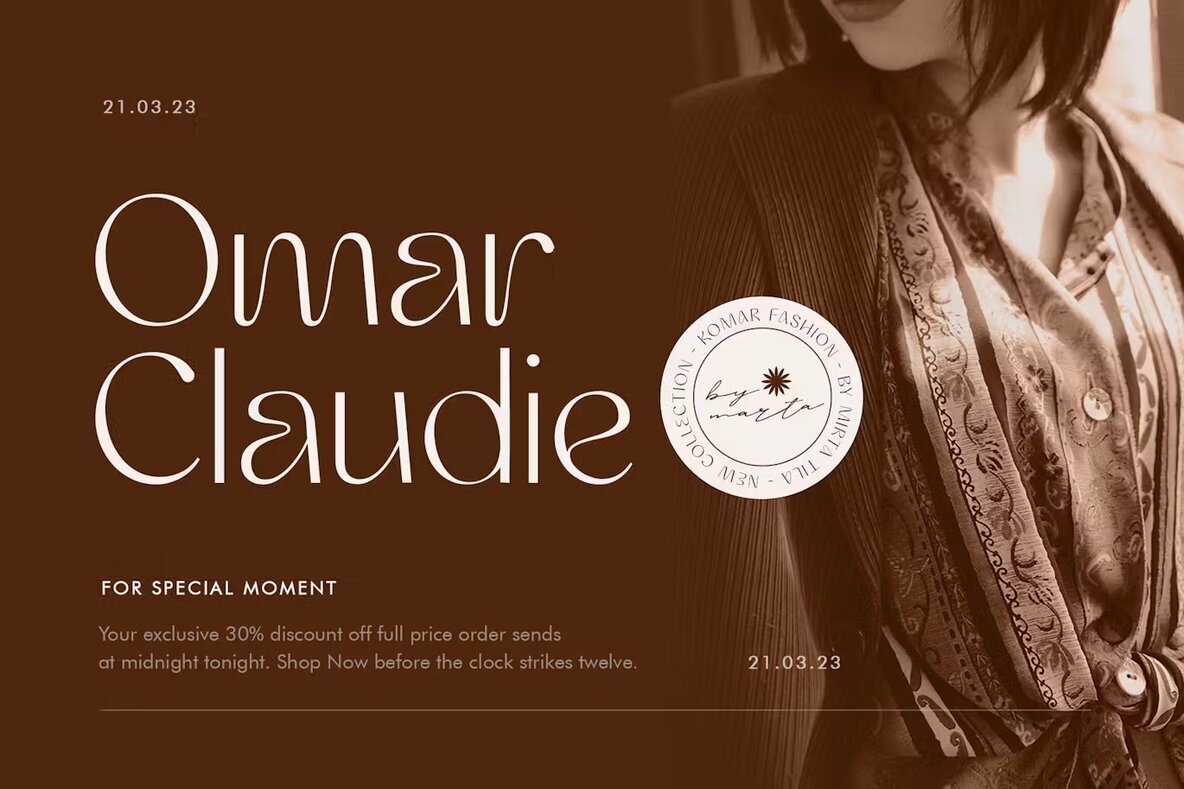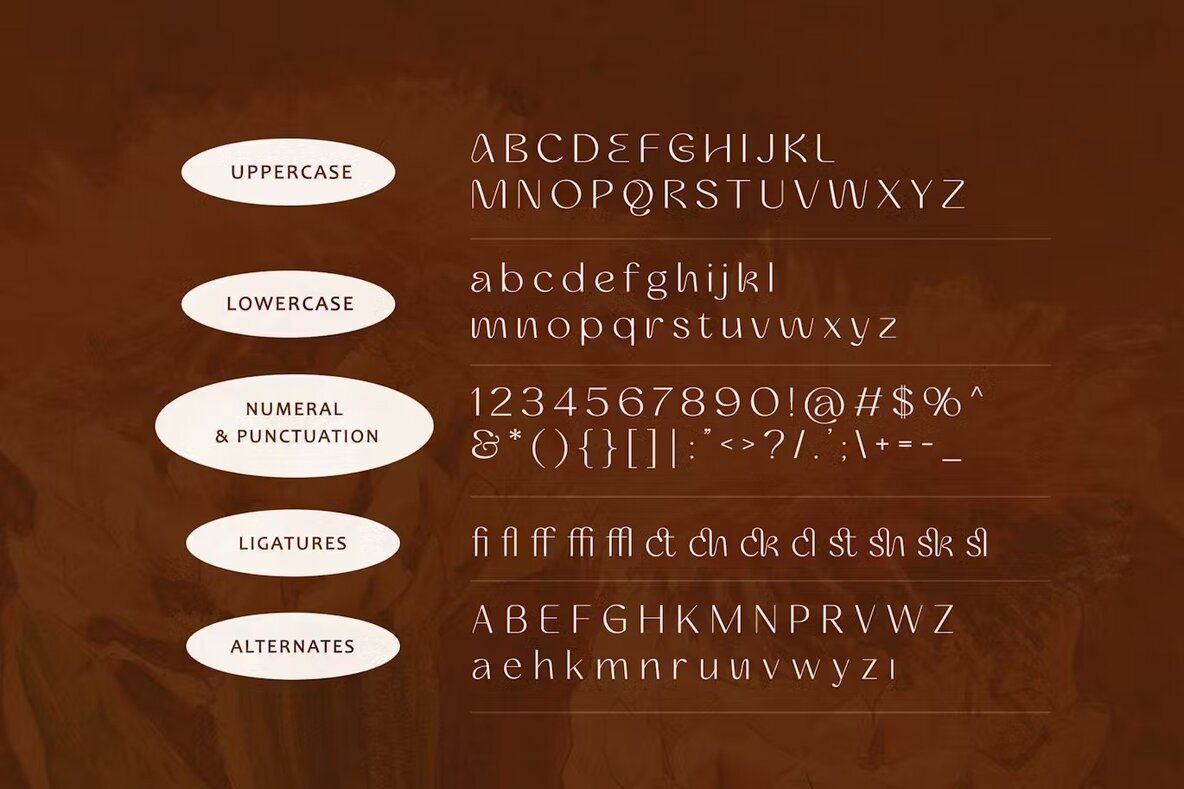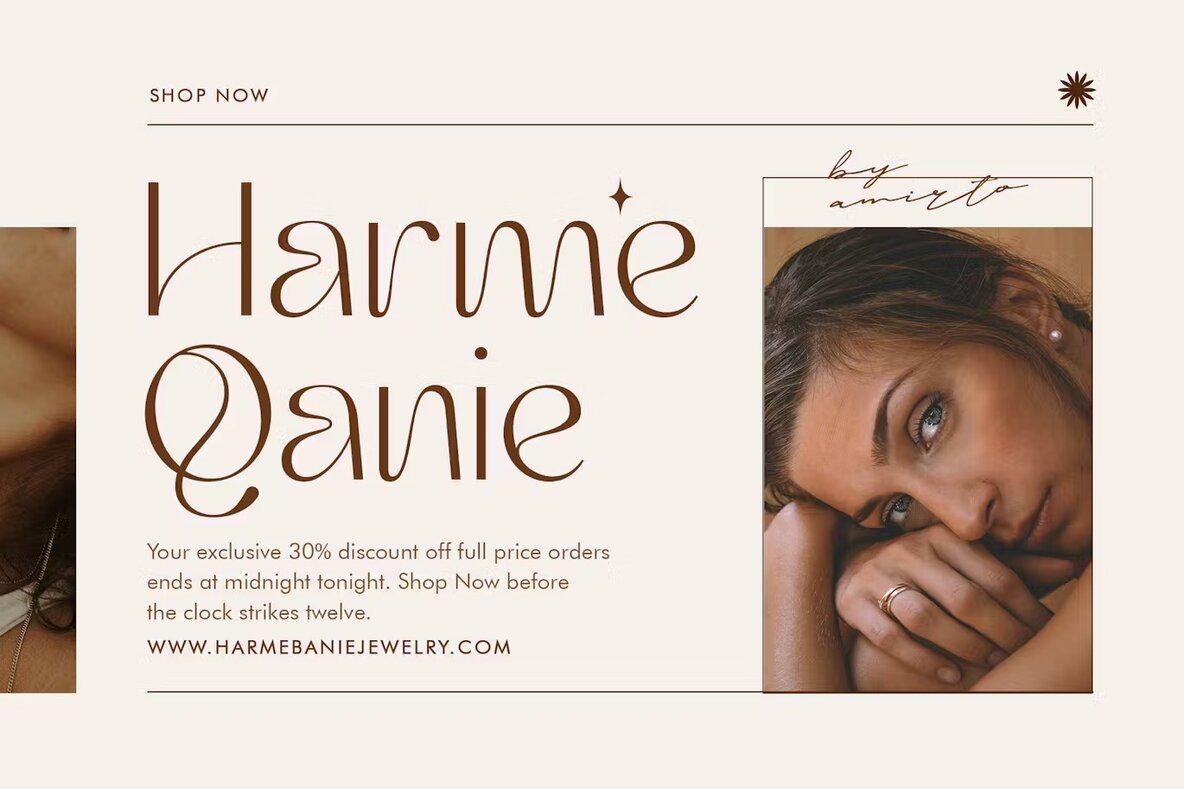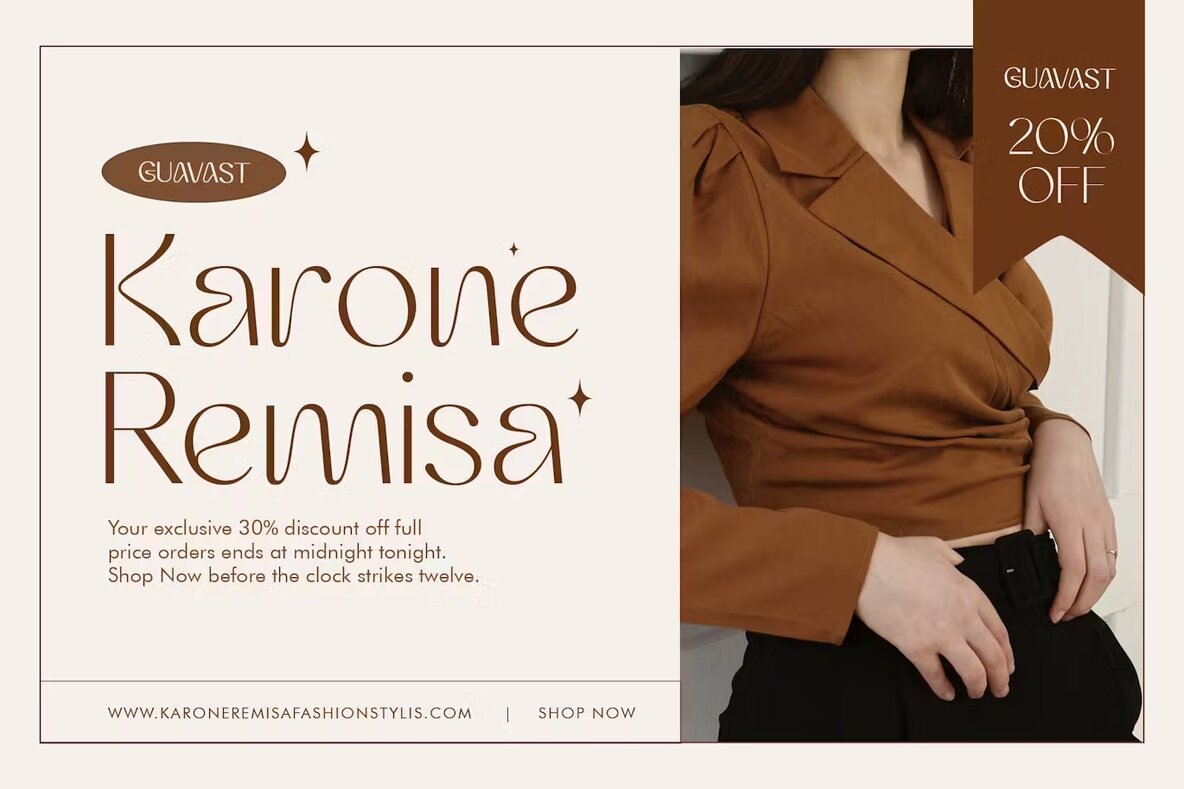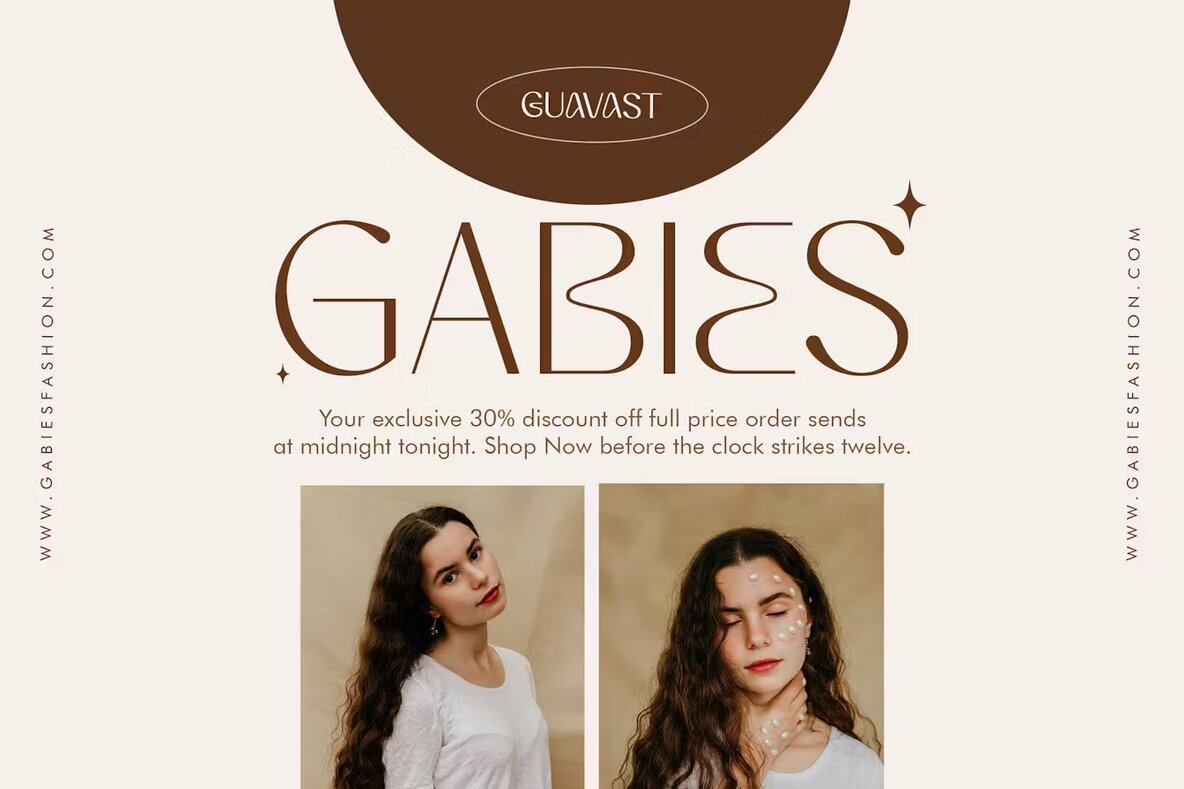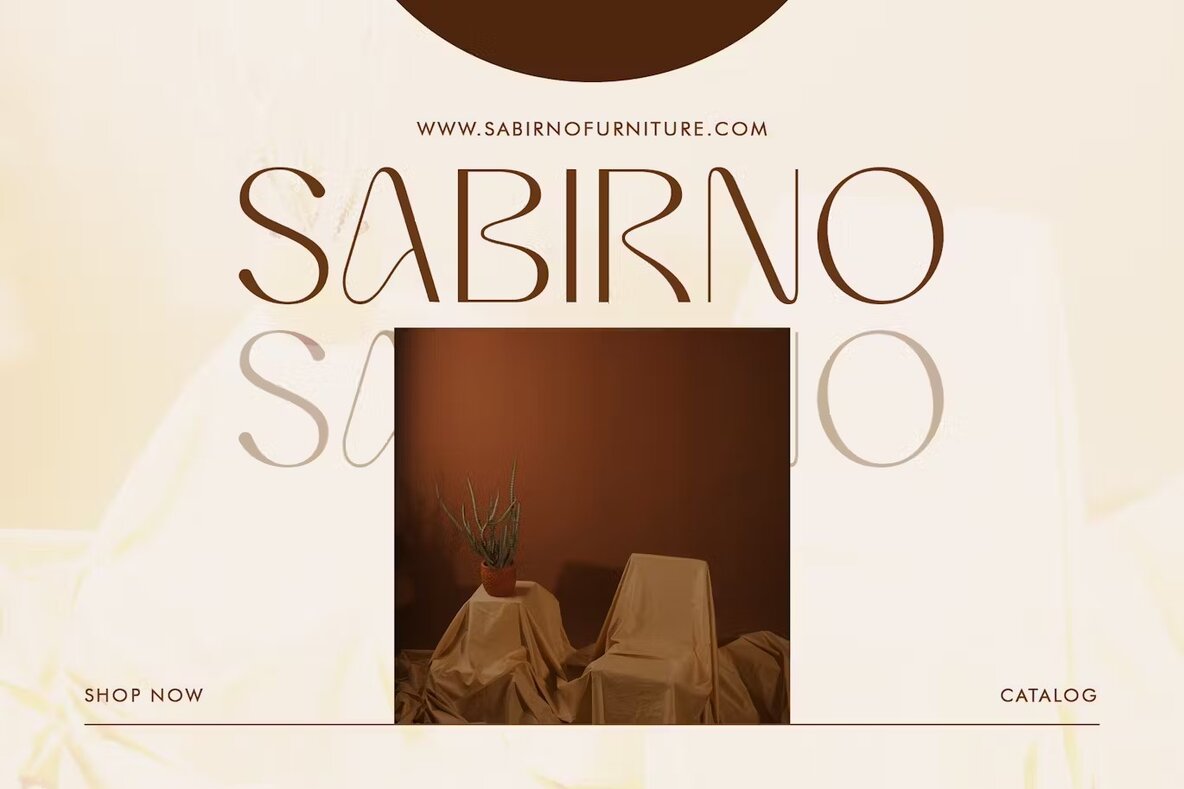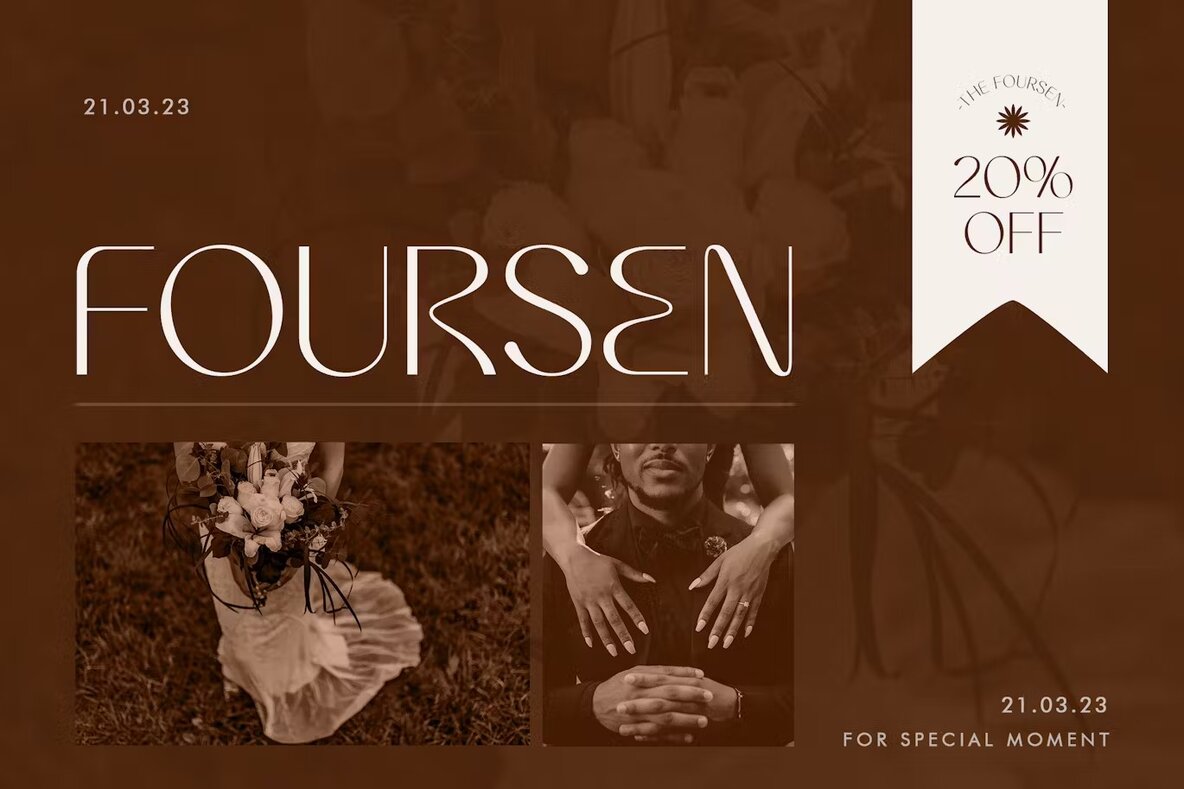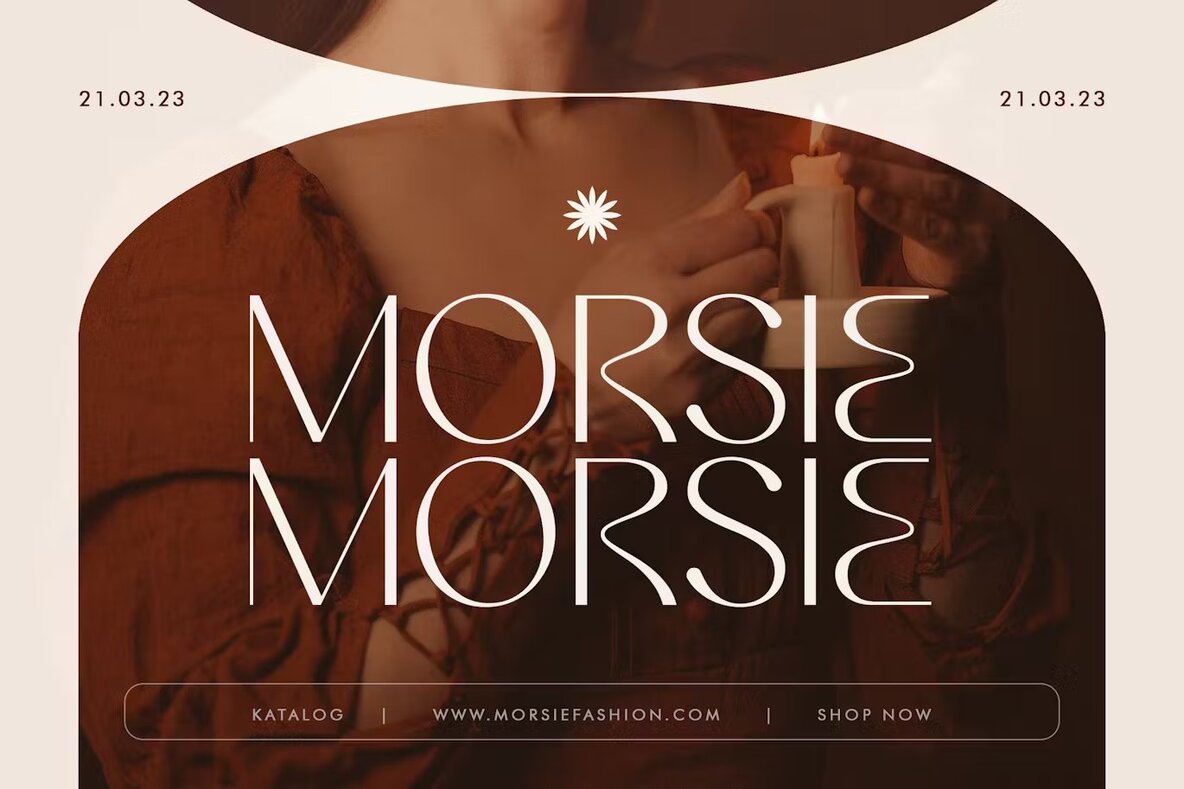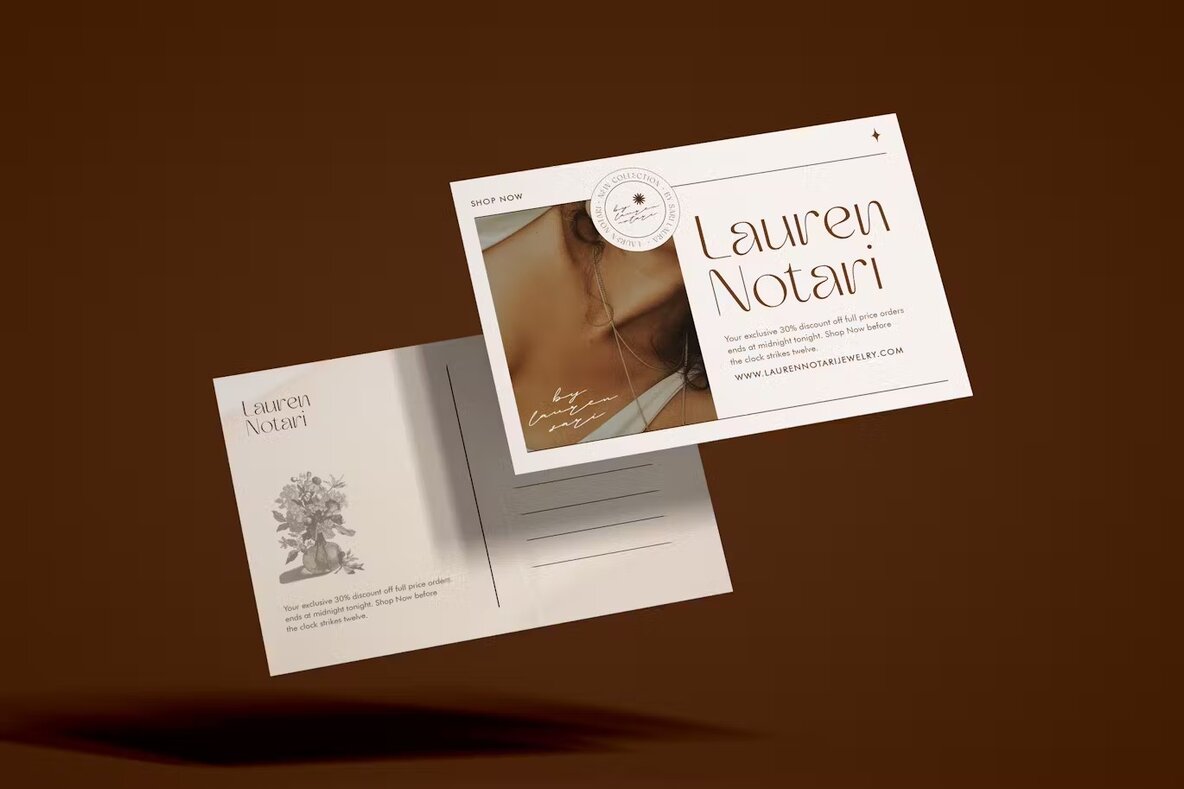
Guavast Font
Guavast Regular
Guavast Sans Serif is a modern, elegant font that excels in adding a touch of timeless beauty and sophistication to various design projects. Its clean and refined lines make it ideal for wedding invitations, branding, logos, editorial designs, and more. This font stands out with a harmonious balance of thick and thin strokes, creating a striking contrast that enhances the elegance of your designs. Guavast Sans captures the essence of classic beauty, making it a perfect choice for projects that demand a refined and stylish aesthetic.
Featuring unique ligatures, discretionary ligatures, and alternates, Guavast Sans offers a distinct and sophisticated look that sets it apart from other fonts. Its romantic and elegant style makes it an excellent choice for adding a touch of class to any special occasion. Whether used for print or digital media, Guavast Sans brings a level of sophistication and timeless appeal to your work.